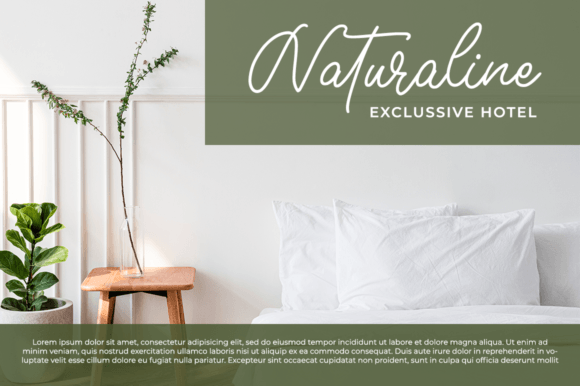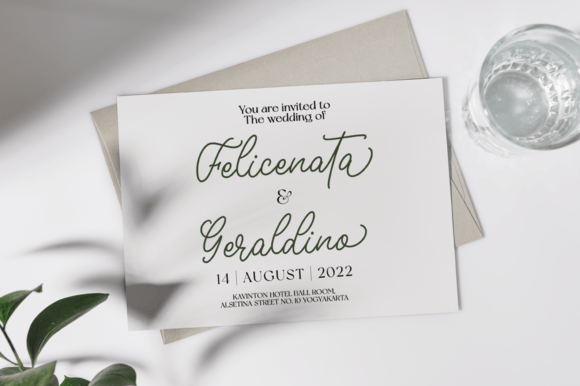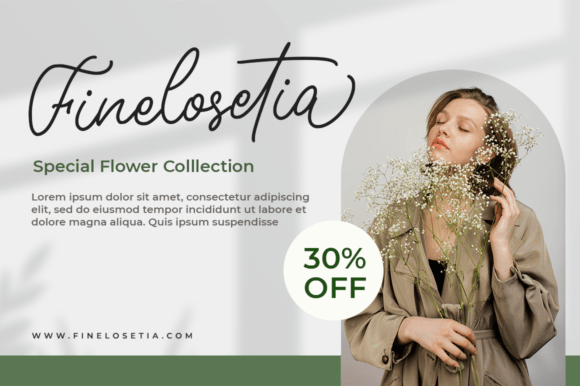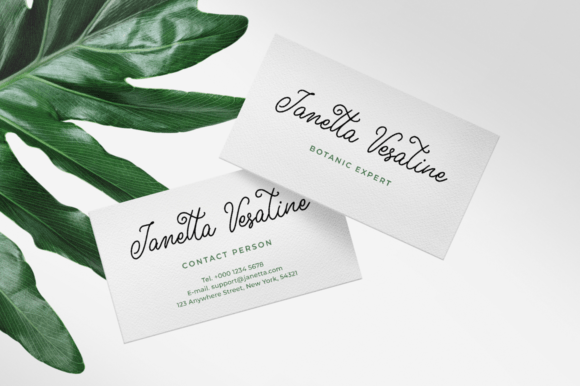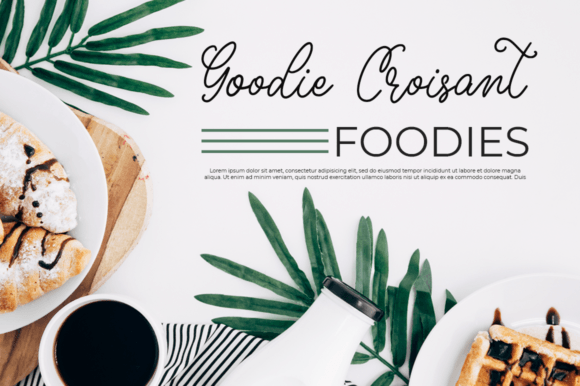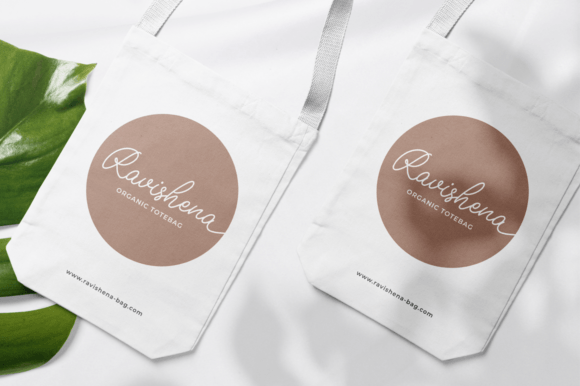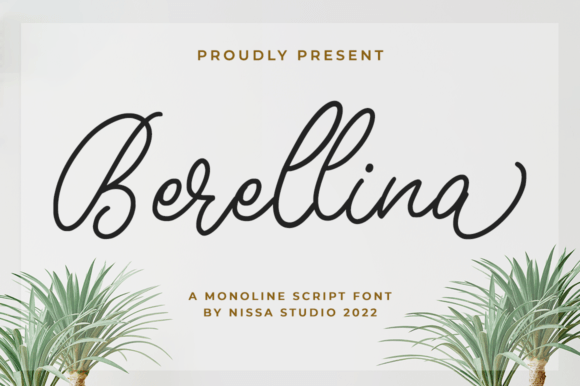
Introducing Berellina Font: Elevate Your Designs with Elegance and Sophistication
Are you searching for a font that embodies elegance, class, and a touch of delicacy? Look no further than Berellina Font, a lovely and charming script font designed to breathe new life into your designs. Whether you’re a seasoned designer or a crafty DIY enthusiast, Berellina is the perfect choice for anyone seeking to add a beautiful and refreshing look to their projects.
The Beauty of Berellina Font
Berellina Font is a stunning script font that boasts a unique blend of elegance and sophistication. Its delicate strokes and intricate details make it an ideal choice for a wide range of design applications, from wedding invitations and branding materials to digital graphics and craft projects. With Berellina, you can add a touch of luxury and refinement to your designs, setting them apart from the ordinary.
One of the standout features of Berellina Font is its PUA (Private Use Area) encoding. This means that you can easily access all of the amazing glyphs and ligatures that make Berellina so special. With PUA encoding, you can unlock the full potential of the font, using its extensive range of characters to create unique and eye-catching designs. Whether you’re looking to add a personal touch to your projects or simply want to experiment with different typography, Berellina’s PUA encoding makes it easy to do so.
Berellina Font is a versatile and adaptable font that’s perfect for both designers and crafters. Whether you’re working on a commercial project or a personal craft project, Berellina provides the perfect combination of style and flexibility. Designers will appreciate the font’s high level of detail and precision, while crafters will love the ease with which they can use Berellina to create beautiful, professional-looking projects.
Use Berellina Font for:
• Branding materials, such as logos and business cards
• Digital graphics, including social media graphics and blog headers
• Craft projects, such as scrapbooking and card making
• Signage and display graphics
Why Choose Berellina Font?
With so many fonts to choose from, why should you choose Berellina? Here are just a few reasons why Berellina stands out from the crowd:
• Unique and elegant design
• PUA encoded for easy access to glyphs and ligatures
• High level of detail and precision
• Versatile and adaptable for a wide range of design applications
• Perfect for both designers and crafters
Get Creative with Berellina Font
In conclusion, Berellina Font is a truly special font that offers a unique combination of elegance, sophistication, and versatility. Whether you’re a designer, crafter, or simply someone who appreciates beautiful typography, Berellina is a must-have font that’s sure to inspire your creativity. With its PUA encoding and extensive range of glyphs and ligatures, Berellina provides endless possibilities for creative expression. So why not give Berellina a try today and see the difference it can make in your designs?